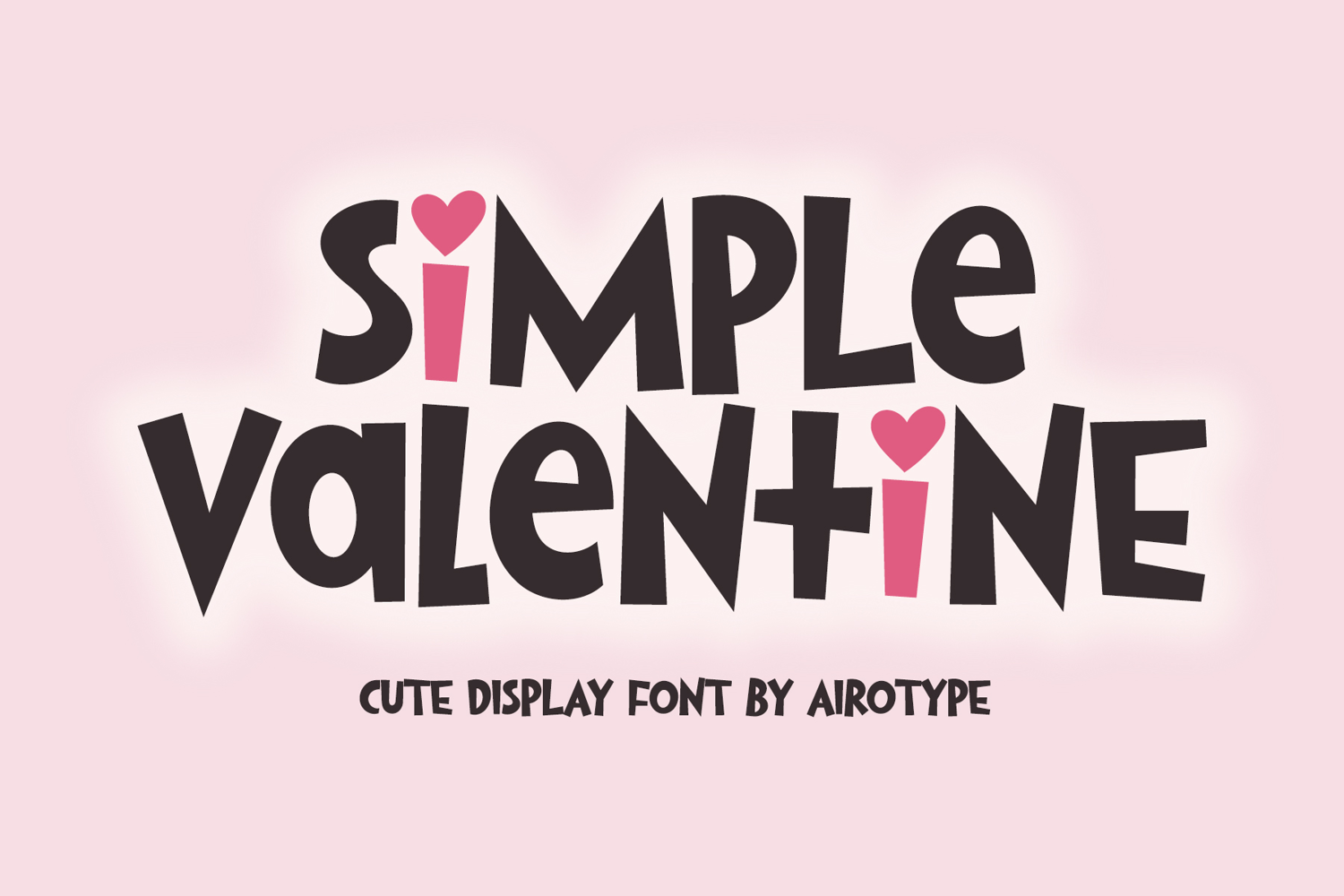
Simple Valentine is bouncy and cute display font. It can be mixed among its lowercase and uppercase to give more festive style into the design.
Simple Valentine is suitable font for wide ranges of design with cute and lovely theme, such as t-shirt, display, valentine's day, crafting, sticker, quotes, tumbler, sublimation, and many more